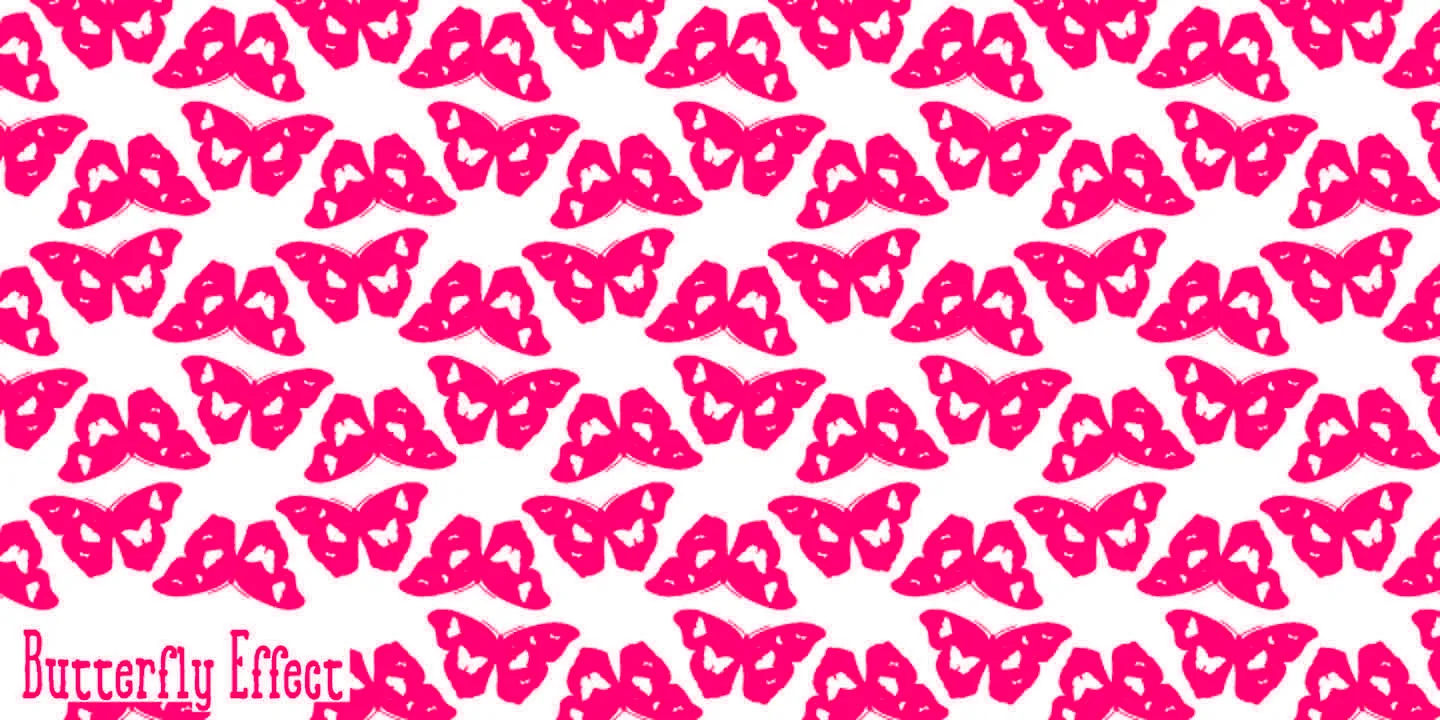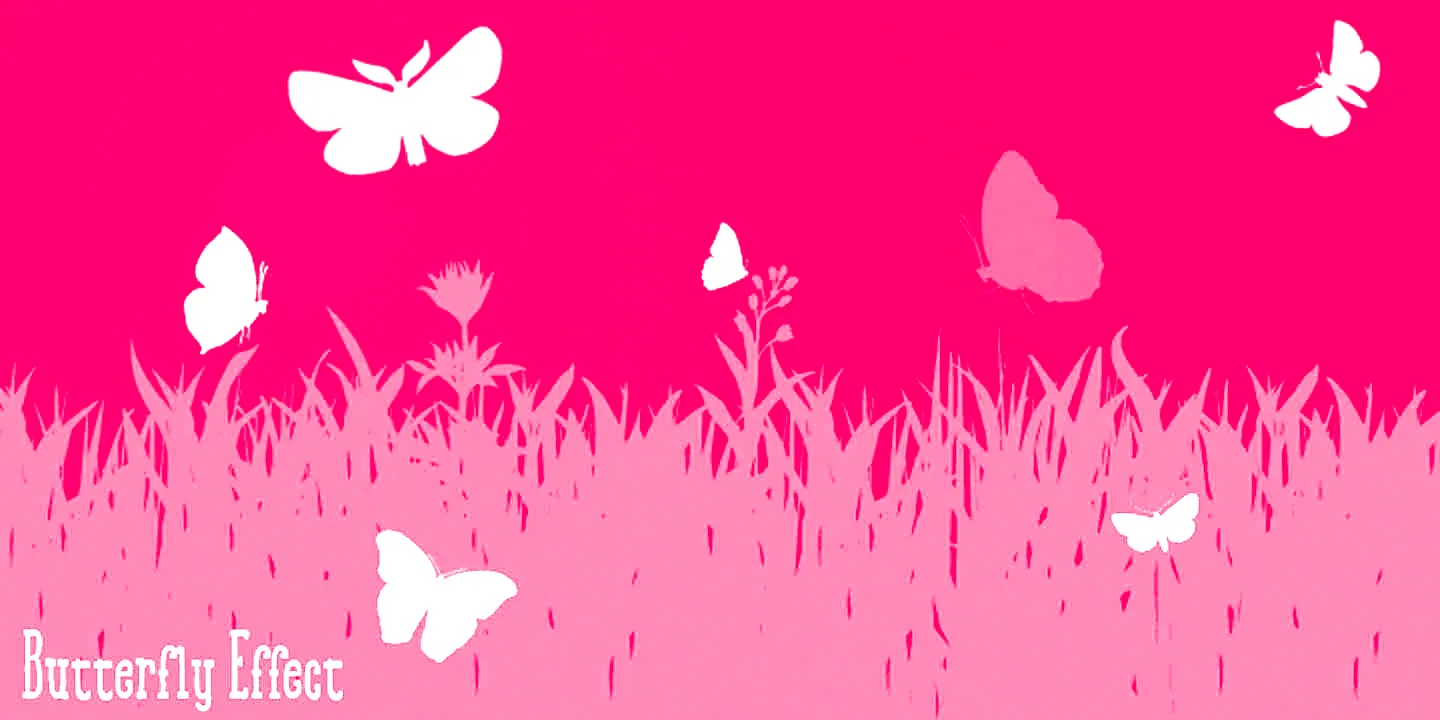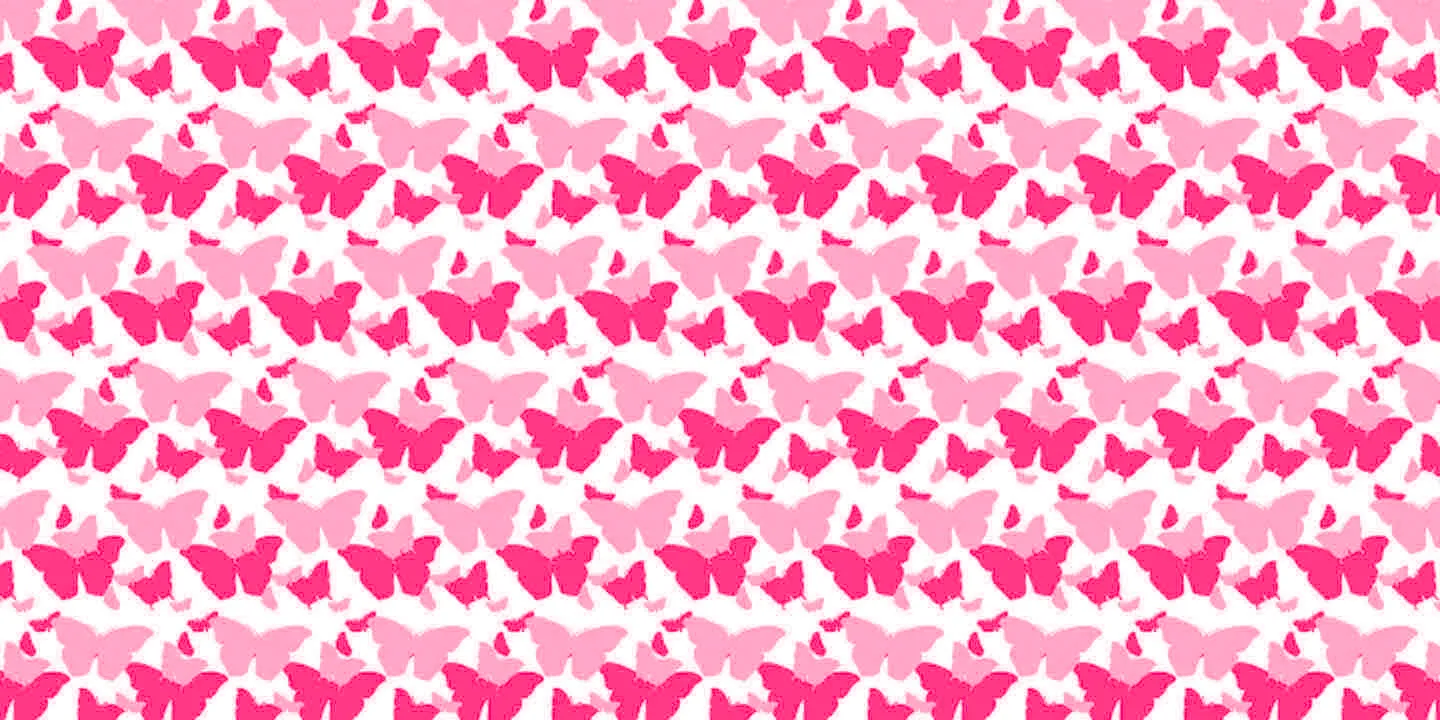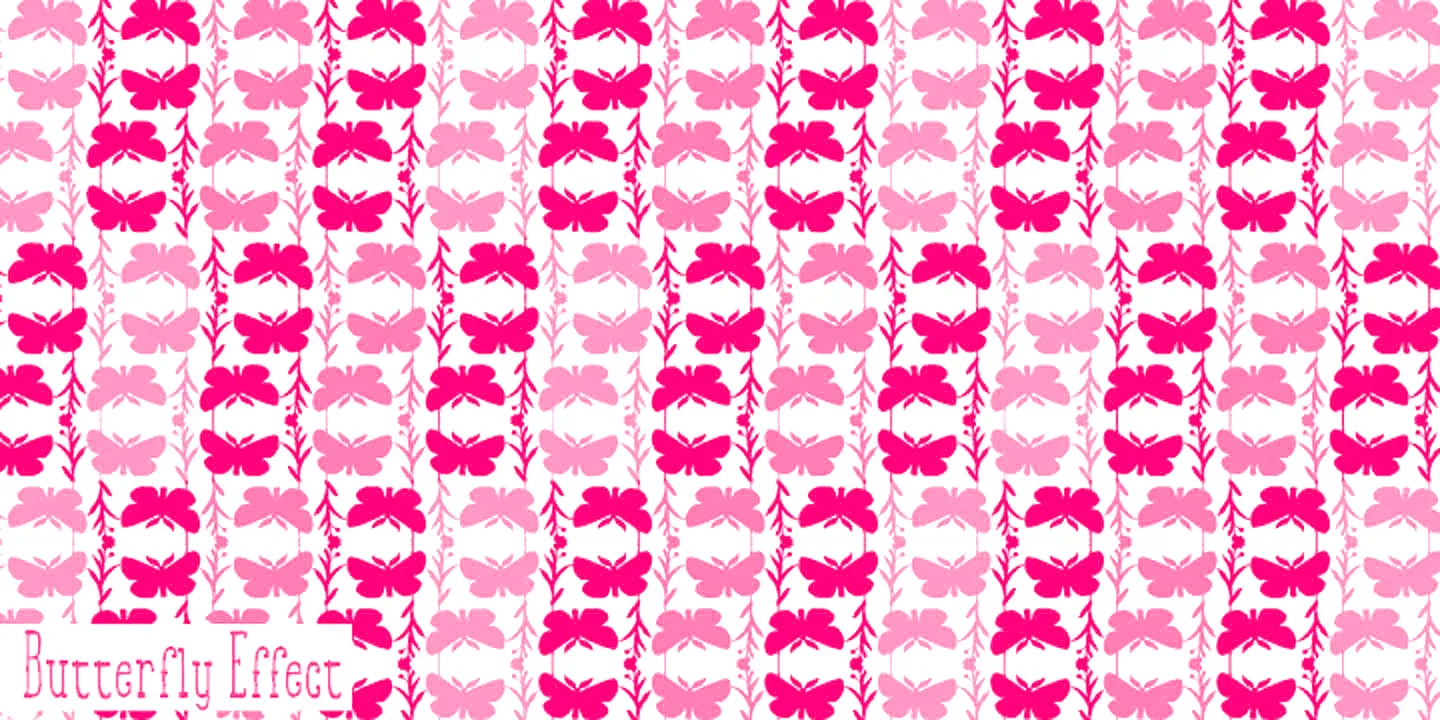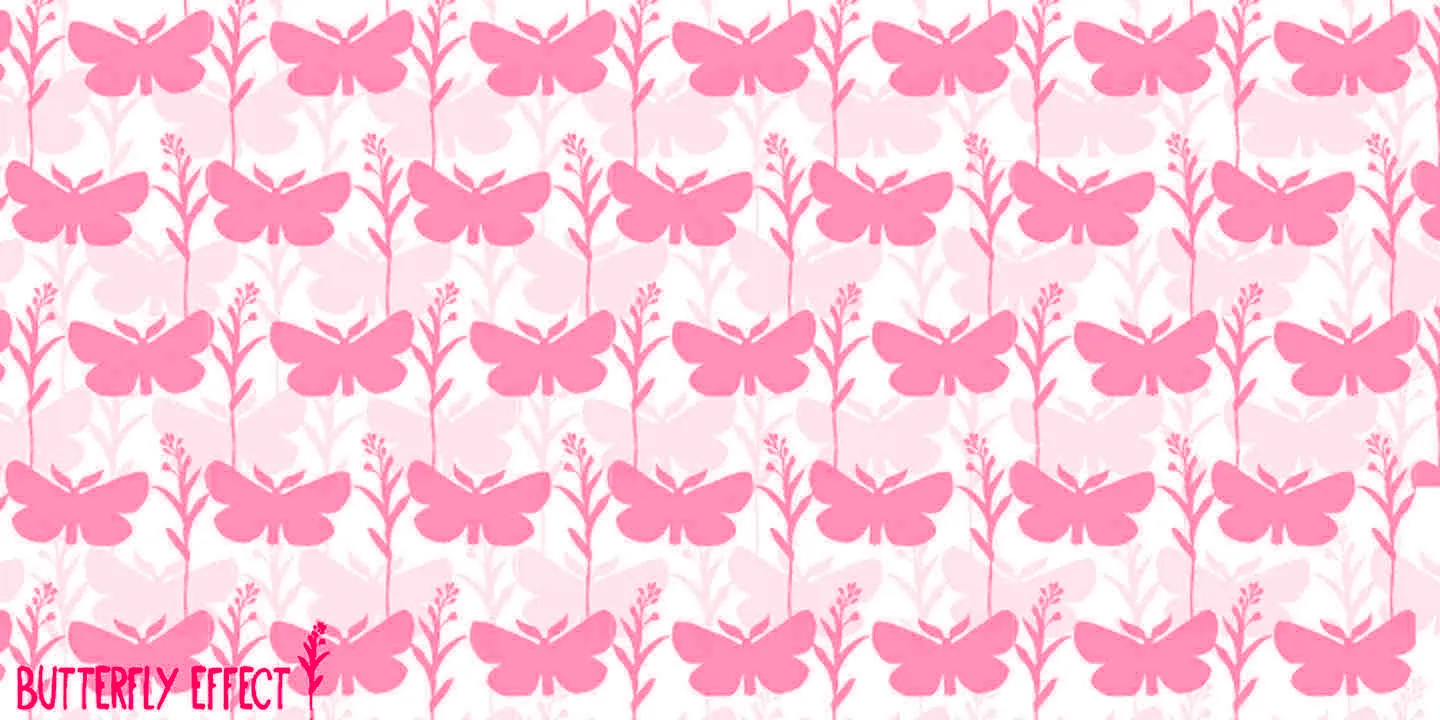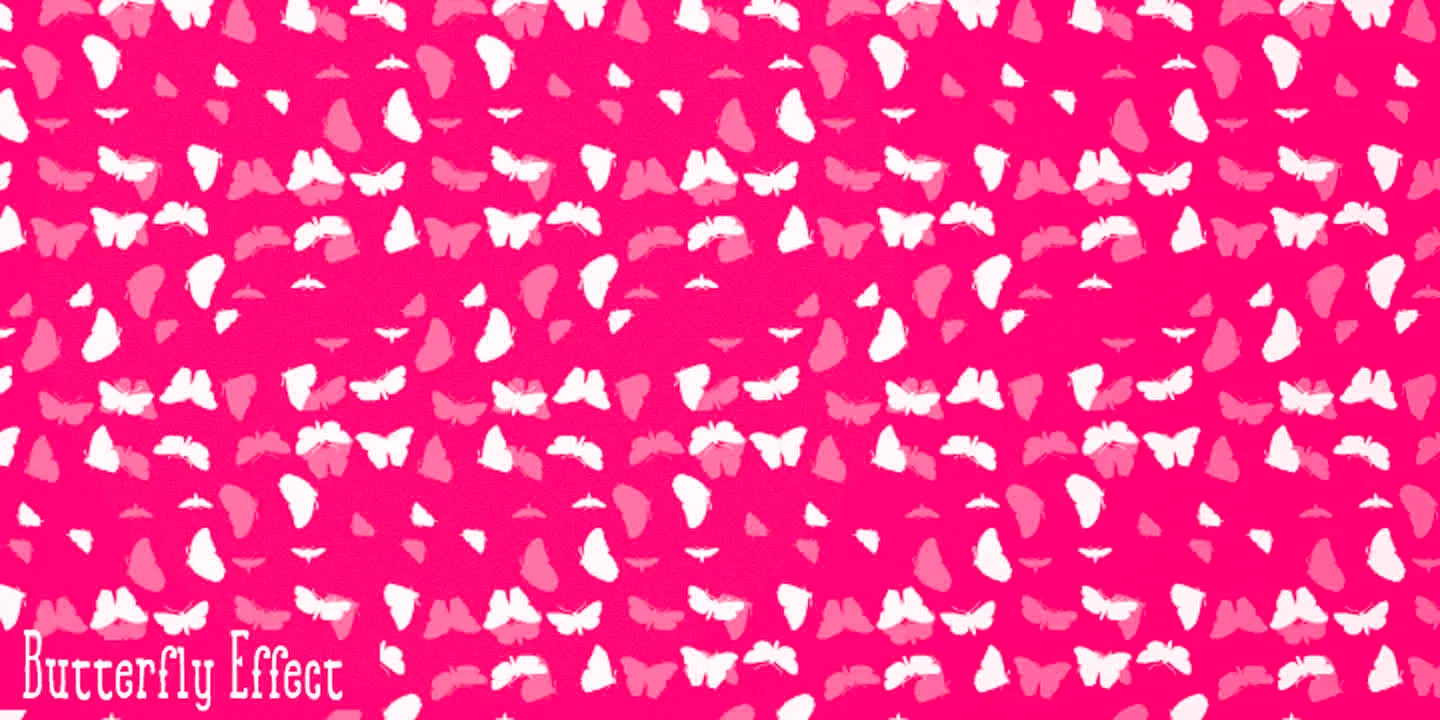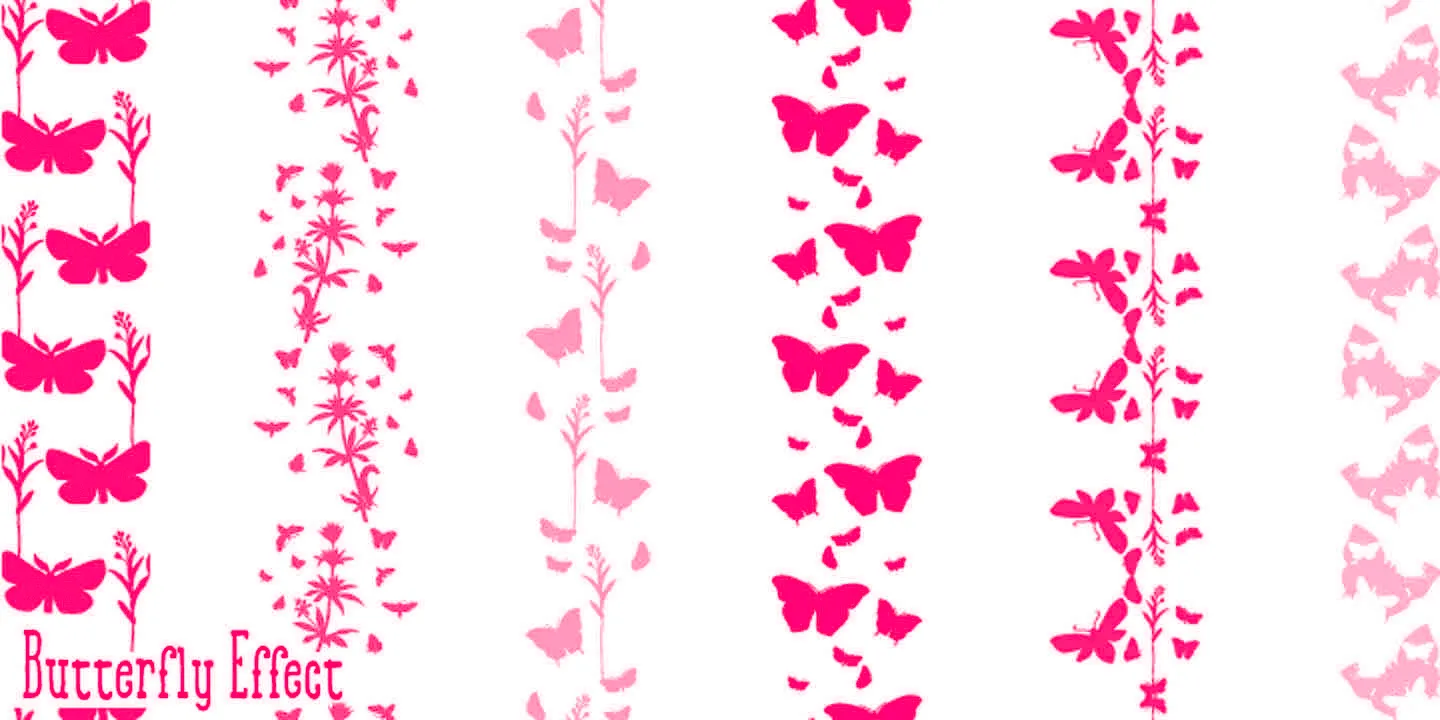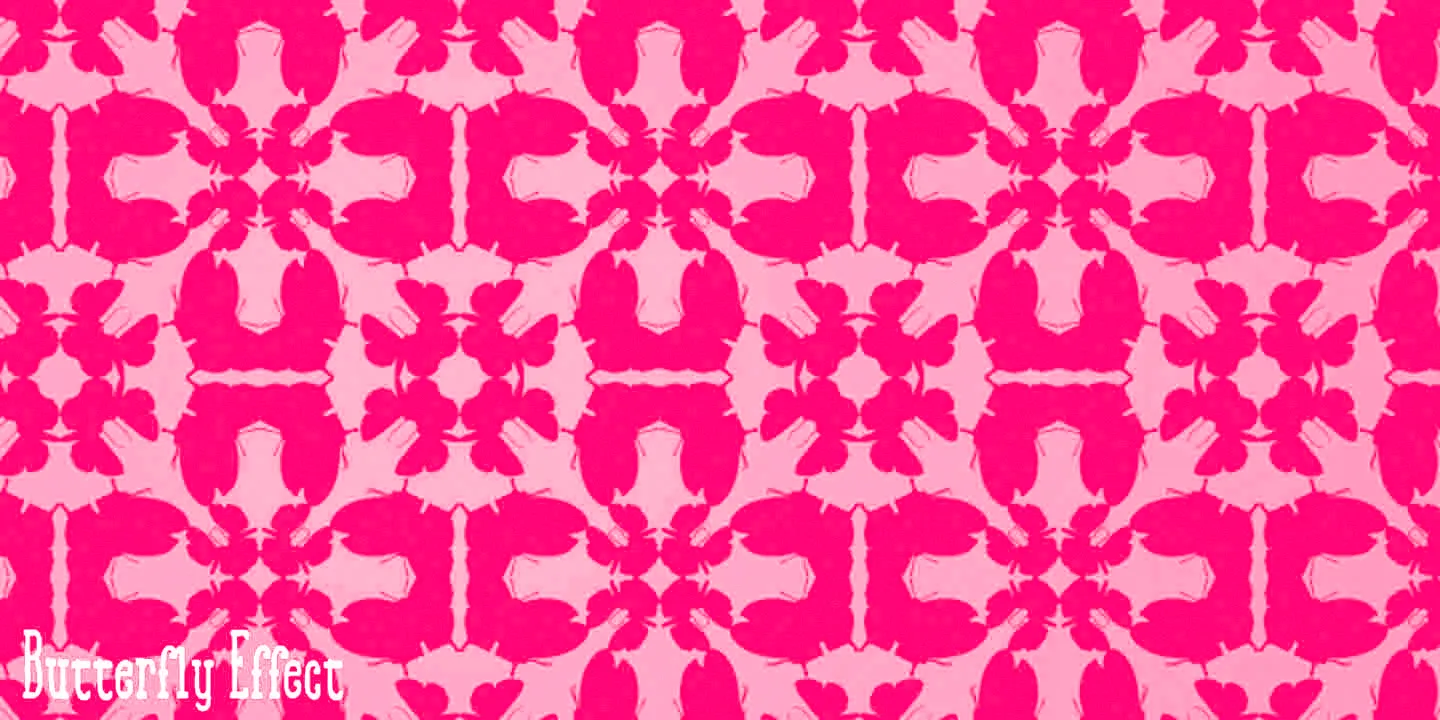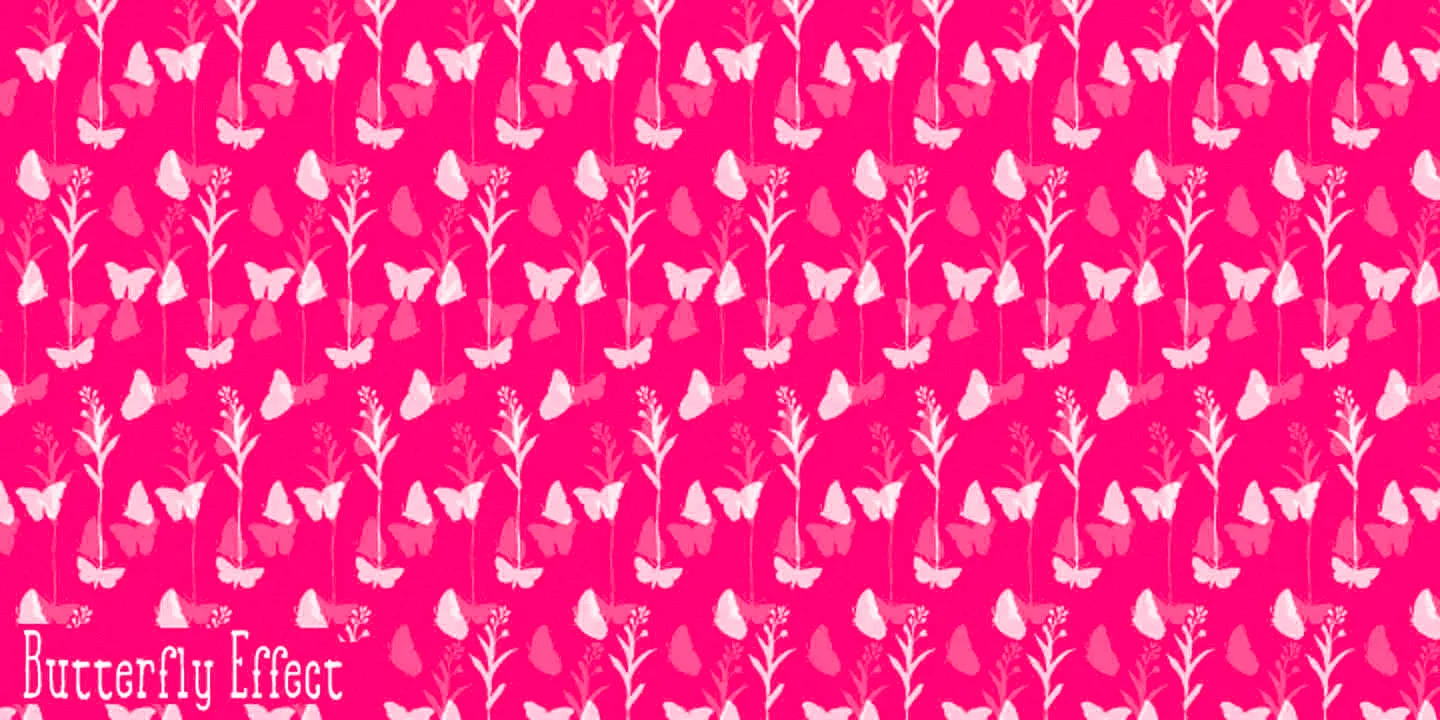
Butterfly Effect Fonts
Butterfly Effect
Butterfly Effect is a decorative swarm of butterflies. Use the 65 unique glyphs to design patterns or add ornamentation to packaging, book jackets, posters, wrapping paper, and textiles.